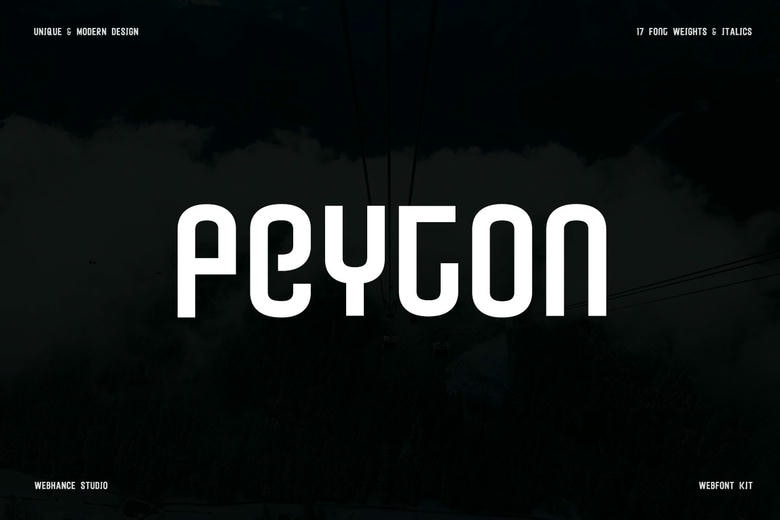
Peyton Font Family
Peyton is a densely geometric font and belongs to techno look display font classification. Because of the uncomplicated design of this font, it will add a professional look to any of your designs. So have fun with this beautiful font and learn more and more about this type of font and its different ranges.
Peyton Display Font Family